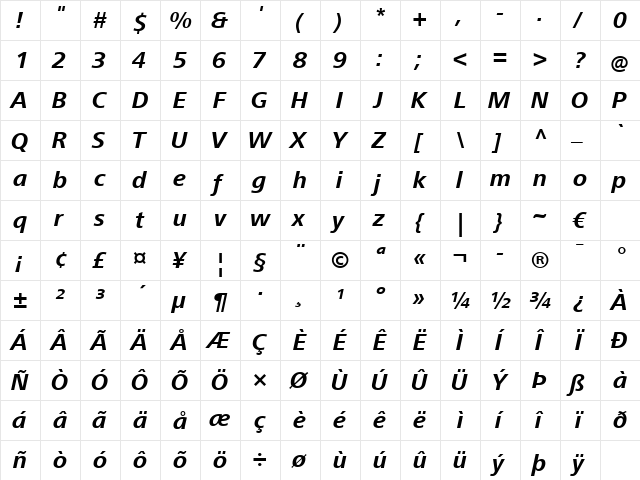
FrutigerNext LT BoldIt Regular Font Preview
FrutigerNext LT BoldIt Regular
FrutigerNext LT BoldIt Regular Font Details
| Foundry | Linotype Library GmbH |
| Designer | Adrian Frutiger |
Design Context for FrutigerNext LT BoldIt Typeface
FrutigerNext LT BoldIt is a composed and adaptable typeface that performs quietly and consistently across a wide range of design contexts. Its bold stroke weight gives it real presence on the page.